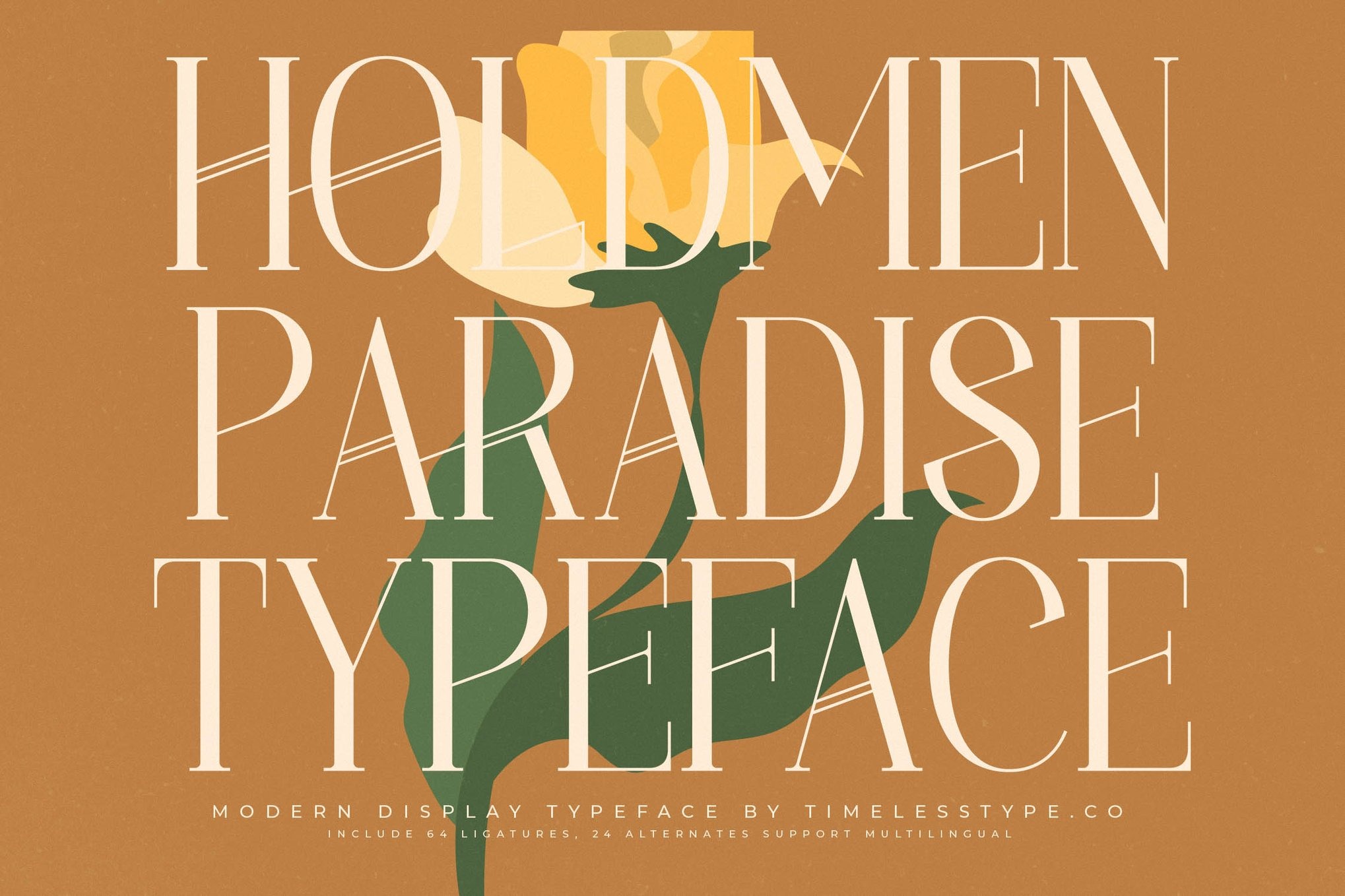
Holdmen Paradise Font
Holdmen Paradise Font is a clean and thoughtfully built typeface that works seamlessly for both professional branding and everyday creative uses.Holdmen Paradise is a refined modern display typeface designed with tall proportions, elegant curves, and sophisticated contrast. Featuring 64 ligatures and 24 stylistic alternates, this font offers luxurious visual expression for premium branding.
Perfect for editorials, high-end packaging, fashion branding, posters, and artistic layouts, Holdmen Paradise brings a sense of grandeur and modern classic aesthetics to every project.